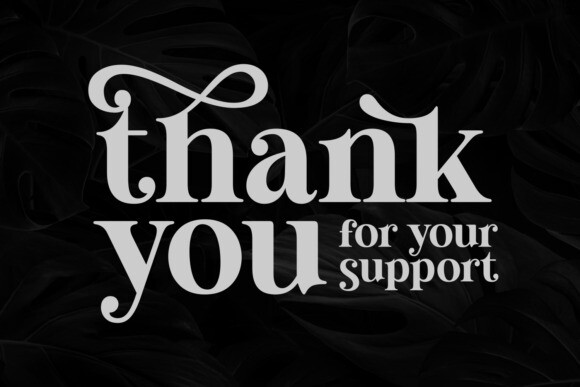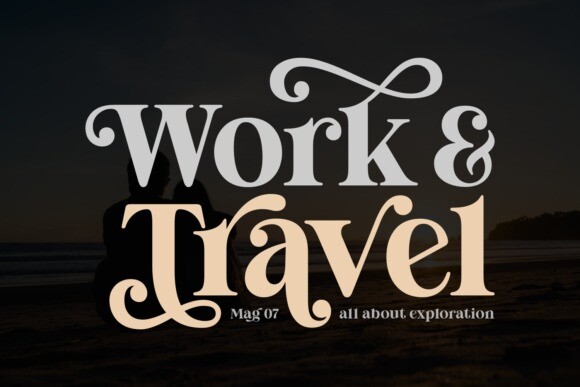
Modesty Rogers Font
Designer: Rizkky (7NTypes)
Modesty Rogers Font is a stylish and gorgeous serif font. It is PUA encoded, which means you can access all of the glyphs and swashes with ease!